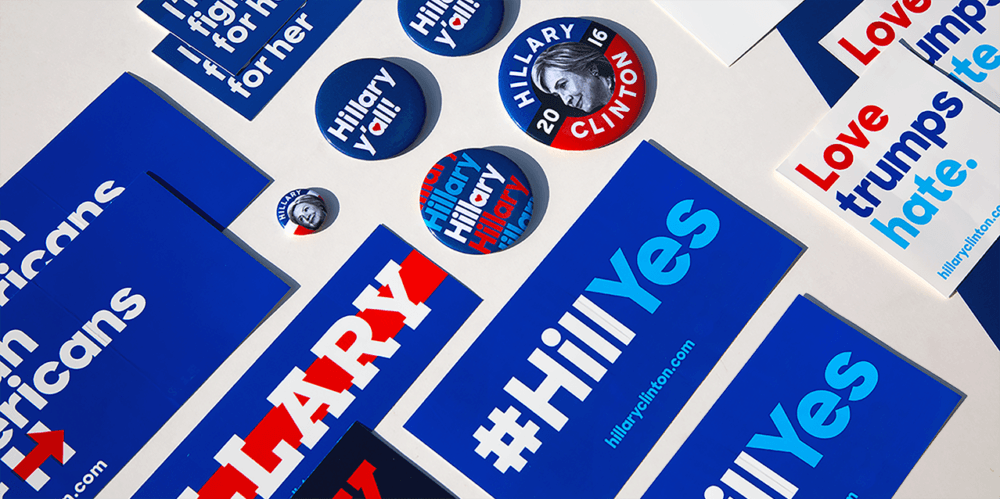
Branding Hillary 2016 and the Semiotics of Neoliberalism
WHEN IT COMES TO POLITICS, CONTENT IS KING. Our obsession (mine included) with the horse race of presidential politics leads us to obsess over the minutiae of campaigns, and in this endeavor graphic design is tasty chum. After all, in a world this batshit insane, analyzing inconsequential matters like font choice is an appealing distraction from darker topics like, say, the fact that our planet is dying.
What follows is a post-op of the Hillary 2016 visual identity, in the parlance of the profession. Its intent is not only to learn from history in order to produce better work for better candidates in the future, but also to understand the responsibility of the profession in contemporary politcs.
In a functioning democracy, our role as designers and communicators should be to make a candidate’s ideas and policy positions clear so that voters are better equipped to make a free and informed choice. Hillary’s campaign design was considered a success though it did little to articulate policy positions, which corporate Democrats assiduously avoid for good reason. Although graphic design was at most barely consequential when it came to the outcome of the 2016 presidential election, the design of the campaign materials is inextricably intertwined with the political realities of the Clinton campaign organization, and as such, I’m about to betray my own political leanings. While the “content issue” in her campaign is a glaring one, this piece is not meant to be a hit job on Hillary. Instead, I will examine past approaches to the visual “branding” of American presidential candidates and how they reflected the political realities and power dynamics of their time, and use these perspectives as a means of glimpsing the horizon of the possible. I believe Graphic Design has an incredible potential for political organization, but no graphic treatment can substitute for ideology, it can only serve to amplify it.
As Graphic Designers, we weren’t the only wonkish set of experts who got our asses handed to us that fateful night in November ‘16, and even on the other side of four years of Trumpism it’s going to take some serious red-pilling for all of us to truly understand what went wrong. After all, by industry standards and conventional wisdom, everyone involved in the campaign’s visual identity did a fantastic job.
The Electoral Marketplace
Throughout American history, our political visual communications have roughly been congruent in style and approach to the commercial advertising of their day. Theoretically capitalism, like voting, is all about choice. So it follows that the same capitalist mechanisms of persuasion: advertising, marketing, and later branding, would all naturally come to be applied to political contests.
Neoliberalism is a term that’s become squishy in public discourse lately, but its common modern usage refers to a hyper-capitalist political and economic philosophy characterized by globalization (foreign labor competition to beat back domestic labor), unfettered capital flows, and mass privatization of previously public spaces and resources, all in order to subsidize a permanent, partially meritocratically determined ruling class, that typically refuses to pay much in taxes. This way of thinking has become the unassailable consensus among most of the world’s politicians, coming to dominate both major American political parties by the mid 1980s. In practice, seeing the effects of neoliberalism can be a bit like trying to identify the contours of a white object on a white background. It’s hard to imagine anything that’s beyond the reach of capital.
This effect is sometimes known as hypernormalisation, a term first coined by Alexei Yurchak to describe the state of mental impotence experienced by citizens of the Soviet Union during its faltering last years, and more recently associated with filmmaker Adam Curtis. It’s a state of mind in which people know that the system they live under is dysfunctional and wrong but, lacking alternative modes of being, they accept it at face value. So even when the wrongness is in full view, they choose to look away. We know our system is broken. It’s not just rising wealth inequality and rampant social injustice, the world is now also on fire and all the animals are dying really fucking fast.
Neoliberalism is so hypernormalised that it can be almost impossible to lift its curtain up far enough to question the merits of our actions, like a presidential hopeful making tons of money giving speeches to rooms full of Wall Street executives, for example, or treating a presidential campaign like a corporate branding exercise. It’s how the most highly decorated members of every politics-adjacent technocratic discipline in the nation (graphic designers included) assembled behind a candidate and still managed to pull off the most humiliating political loss in American history.
Even catastrophic “system failure” events like Trump’s 2016 victory do not shake the neoliberal orthodoxy. Hillary, for example, has taken zero responsibility, opting to blame the entire fiasco on Putin and Bernie. Damn you Fortuna, you capricious sprite!
Michael Bierut, the brilliant scion of Graphic Design behind the Hillary 2016 visual identity, had some interesting but ultimately impotent reflections on how the election played out. Unable to reconcile the events with his understanding of the world, he meekly pointed to the colloquial homemade pink “pussy” hats worn by participants of the Women’s March. Michael was right, of course: those incredible pink hats did contain an inscrutable kernel of elusive truth. Those resplendent pink pussies constituted a truly democratic political statement, participatory in both its conception and practice. I am not advising that politicians embrace or knit or wear said hats, I am merely pointing out that those hats were the symbolic antithesis of the official 2016 Hillary campaign identity. The fact that nobody questioned the merits of applying the aesthetics and principles of a corporate visual identity to a presidential campaign, [[even one in which such human issues as bodily autonomy and the right to equal health care, as the protest hatmakers showed, were at stake]], shows what a severe state of hyper-normalized neoliberalism we all inhabited.
Elections are the means by which individuals in a democratic society collectively exert agency over their institutions. Corporate branding is one of the many ways in which powerful corporate entities exercise agency over individuals. These two obviously opposing forces can only be assumed to belong together in a world in which individuals have no agency beyond consumption, as atomized organs of capital. To those of us working on the campaign identity at the time, voters were shoppers browsing the aisles of the political marketplace, looking for the shiniest product. I would like to offer my fellow professionals an alternative approach, but it will require us to challenge ourselves in ways we are not accustomed to being challenged as commercial designers. We must approach the way we think about design in the context of politics differently, because capitalist and democratic endeavors are by definition distinct, and require vastly different approaches and strategies.
A Little History
Although a more complete survey of presidential campaign materials going back even further would be all the more informative, for the purposes of this article, I have chosen four examples that I think best illustrate the origins of American political visual strategy in the neoliberal era. Our story begins at the dawn of a prosperous and triumphant post-war America.
We also need to make room in our aesthetic strategies for organic participation. Campaign designers should be working to empower coalitions of like-minded creative people to participate on all levels and encourage individual expression in support of their candidates’ ideas, policies, and philosophies. Remember: diversity is the visual expression of democracy. We should be encouraging a diverse array of visual expressions from different constituencies and social organizations—foster variety instead of prescribing homogeneity. Lastly, I would encourage campaign designers to explore aesthetic motifs conceived outside of the traditional capital-intensive systems of aesthetic production.